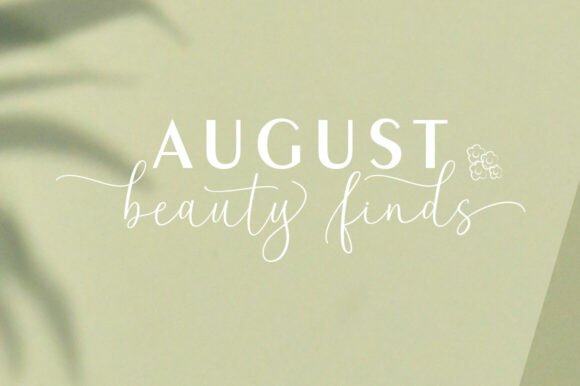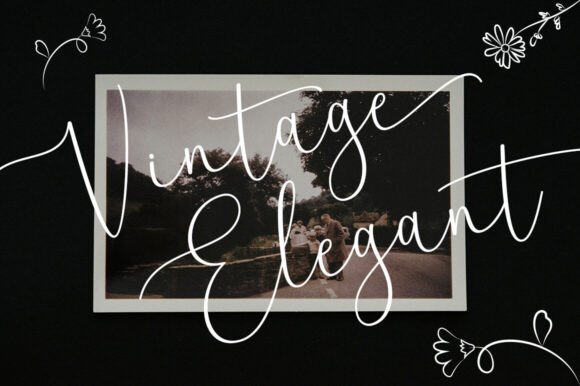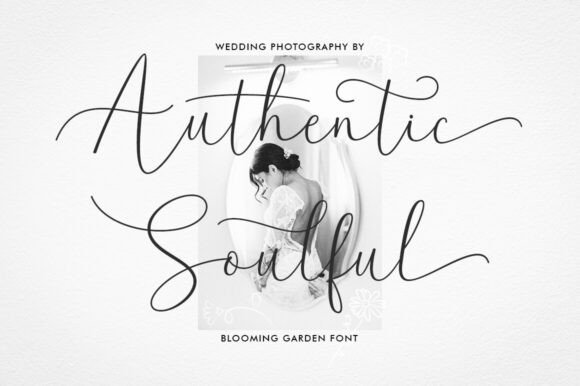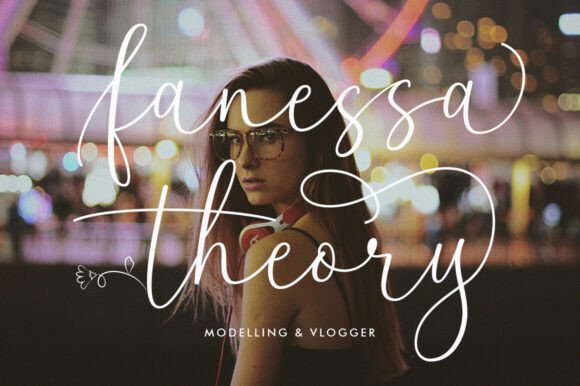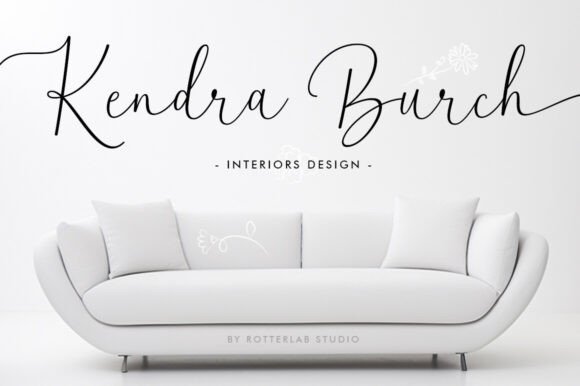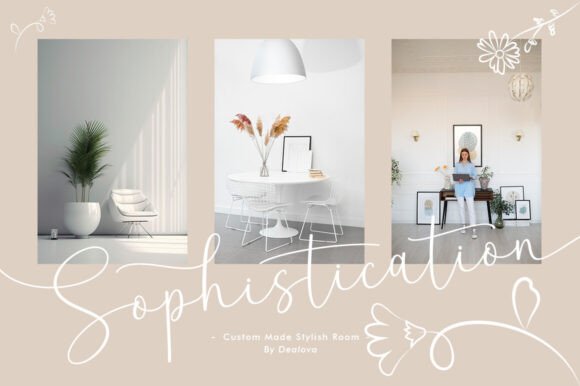
The Perfect Petal: Elevating Your Designs with the Blooming Garden Font
As a designer, have you ever been struck by the perfect combination of elegance and simplicity? Perhaps it was the moment you stumbled upon a vintage invitation or a beautifully crafted logo that left you in awe. Whatever the spark, it’s those moments that drive us to create something truly special. For me, that spark came when I discovered the Blooming Garden Font – a calligraphy masterpiece that brings a touch of luxury and refinement to any design.
With its smooth, flowing lines and soft curves, the Blooming Garden Font is more than just a font – it’s a statement piece. Its timeless elegance and contemporary style make it the perfect choice for branding, stylish wedding invitations, and premium print materials. Whether you’re working on a logo, invitation, or upscale promotional materials, the Blooming Garden Font adds a touch of sophistication and beauty to your project, making it truly unforgettable.
Blooming Garden Font Key Features
- Font Style: A beautiful, hand-drawn floral script with a whimsical touch, perfect for creating a charming and elegant design.
- Unique Characteristics: Features intricate floral patterns, delicate lines, and subtle texture, adding a touch of sophistication and elegance to any design.
Blooming Garden Font Review
I recently had the chance to work with the “Blooming Garden Font”, and I must say it’s a lovely addition to any floral or nature-themed design project. ✨ Here are some of its strengths:
- The font’s delicate and whimsical style is perfect for creating a romantic or vintage feel.
- The variety of brushstrokes and subtle texture add a touch of organic charm.
- The font is highly customizable, making it easy to adjust the size, color, and spacing to fit your design needs.
- The font’s legibility is good, even at smaller sizes, which is a must for any font.
However, as with any font, there are some limitations to consider: ⚠️
- The font may not be the best choice for formal or professional projects, as it’s more suited for whimsical or creative designs.
- The font’s texture can sometimes make it difficult to read at very small sizes or in low-contrast designs.
- The font’s customization options can be overwhelming, especially for beginners.
Overall, I think the “Blooming Garden Font” is a beautiful and versatile font that’s perfect for designers who want to add a touch of whimsy and romance to their projects. While it may not be suitable for every design need, it’s definitely a great addition to any font library.
The Blooming Garden Font is perfect for:
- Floral or nature-inspired designs.
- Wedding or event invitations.
- Botanical or gardening-themed projects.
- Custom illustrations or graphics.
Alternatives to Blooming Garden Font for Designers
Carolyna Pro is a elegant and modern script font that is perfect for creating beautiful headings and titles. It’s great for designers who want to add a touch of sophistication and luxury to their designs.
Comparison to Blooming Garden Font: While Blooming Garden Font is more whimsical and playful, Carolyna Pro is more refined and sophisticated. Carolyna Pro is ideal for high-end branding and design projects, whereas Blooming Garden Font is better suited for more casual and creative projects.